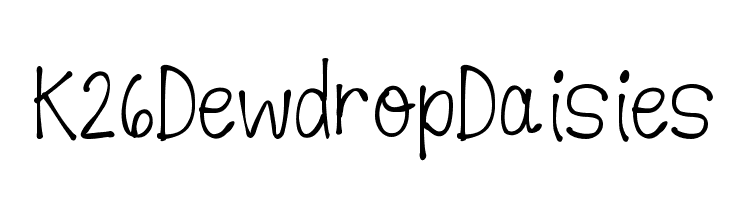
( Fonts by KB3Teach )
A playful, handwritten font with tall, narrow letters and rounded edges.
( Fonts by Ziva Erawan )
A playful, handwritten font with irregular strokes and a casual, whimsical style.
( Fonts by GLUK fonts )
A modern, geometric font with clean lines and a structured, professional appearance.
A playful, bold font with a cartoonish style and shadow effect.
( Fonts by Kurdz - vividbluezz.weebly.com )
A playful, bold font with thick outlines and a cartoonish style.
( Fonts by AEnigma - www.aenigmafonts.com )
A bold, slanted font with a futuristic and dynamic design.
( Fonts by Attype Studio )
A bold, playful font with rounded strokes and a uniform appearance.
( Fonts by Des Gomez )
A playful handwritten font with whimsical, rounded strokes and decorative elements.